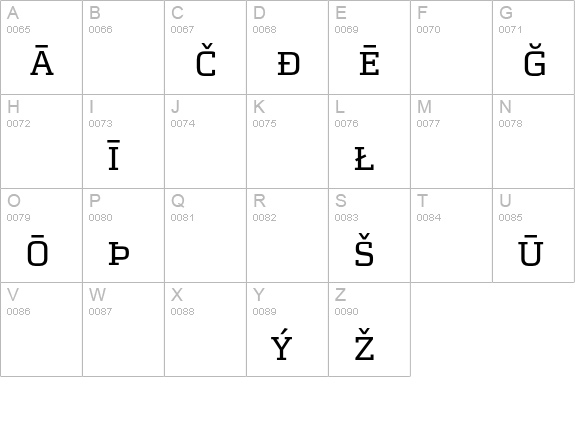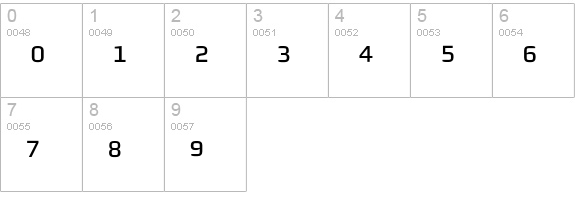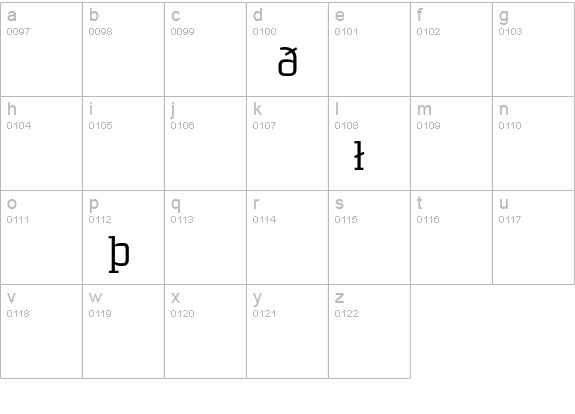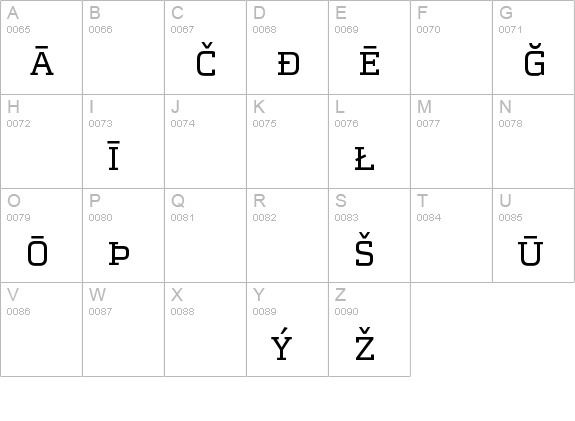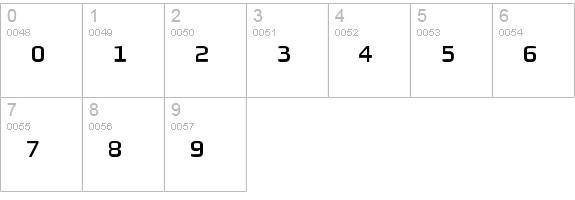
MorganAvec RegularPi Font Details
MorganAvec RegularPi font is a versatile and modern typeface that combines elegance and readability in a unique way. Its sleek lines and balanced proportions make it perfect for a wide range of design projects, from branding to editorial layouts. With its clean and sophisticated appearance, MorganAvec RegularPi is sure to make your text stand out with a touch of sophistication. The best part? This stunning font is available for free download at FontsMarket.com. Whether you're a graphic designer, web developer, or just someone looking to elevate their projects with a touch of style, MorganAvec RegularPi is a must-have addition to your font collection. Get your hands on this exceptional font today and take your designs to the next level!